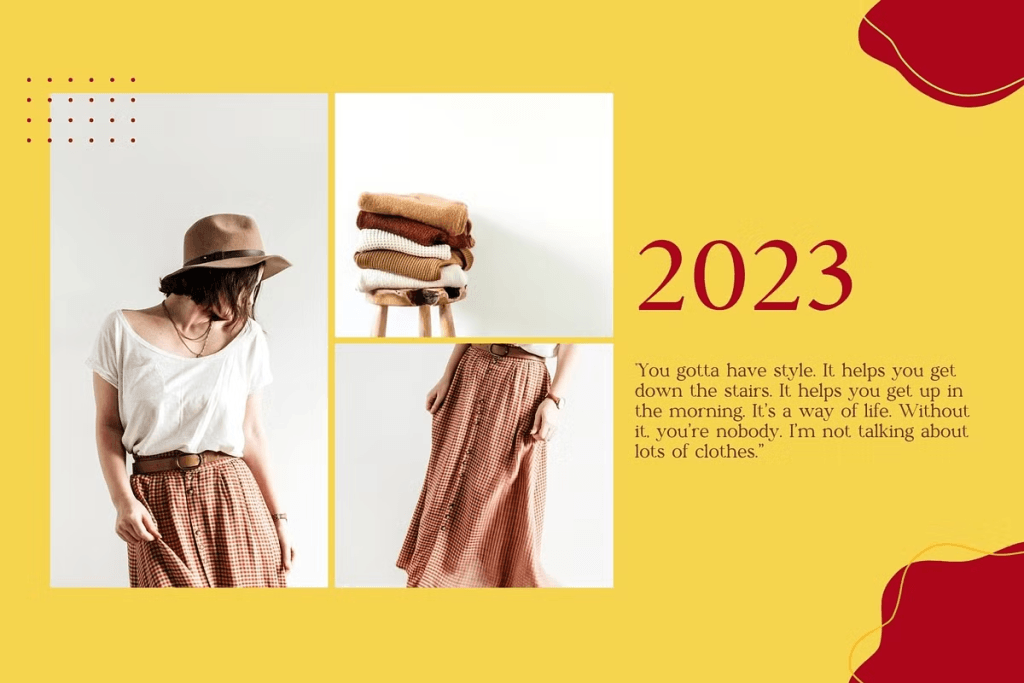
Choosing the best serif fonts for high-end fashion websites is one of the most effective ways to create a luxury digital experience. Many fashion brands invest heavily in photography, product presentation, and web design, yet their websites still fail to communicate exclusivity and sophistication. Often, the missing element is typography.
A fashion website should feel elegant from the moment a visitor lands on the homepage. Typography plays a major role in creating that impression. The right serif font can instantly communicate luxury, craftsmanship, heritage, and premium quality, qualities that high-end fashion customers expect.
Whether you’re designing a luxury clothing store, jewelry brand, fashion boutique, beauty label, or designer portfolio, selecting the right serif font helps create a stronger visual identity and a more memorable customer experience.
In this guide, we’ll explore the best serif fonts for high-end fashion websites, along with practical use cases and recommendations for creating a premium online presence.
What Is a Serif Font?
Before choosing a typeface, it’s important to understand what makes serif fonts unique. A serif font features small decorative strokes, known as serifs, at the ends of letterforms. These details may seem subtle, but they dramatically influence how typography feels and communicates.
Characteristics of Serif Fonts
Serif fonts are often associated with:
- Elegance
- Sophistication
- Heritage
- Luxury
- Professionalism
- Timeless design
For decades, luxury fashion houses have relied on serif typography because it creates a sense of authority and refinement.
Why Fashion Brands Love Serif Fonts
High-end fashion branding focuses on emotional perception.
Customers often associate serif typography with:
- Premium craftsmanship
- Designer exclusivity
- Luxury experiences
- Editorial aesthetics
This explains why many luxury fashion websites use serif fonts for headlines, logos, and hero sections.
Recommended Serif Fonts for High-End Fashion Websites
1. Rockqa
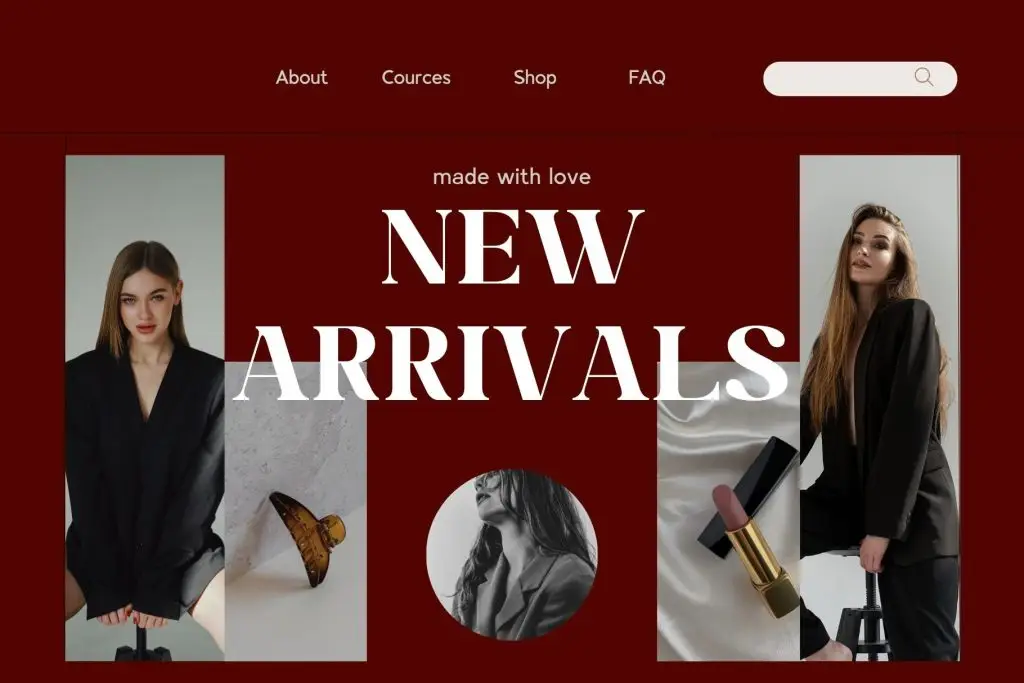
Meet Rockqa, an elegant serif font that embodies sophistication and modern beauty. With refined letterforms, balanced proportions, and smooth curves, Rockqa delivers a polished, professional look ideal for branding, fashion, and editorial use.
2. Schindler
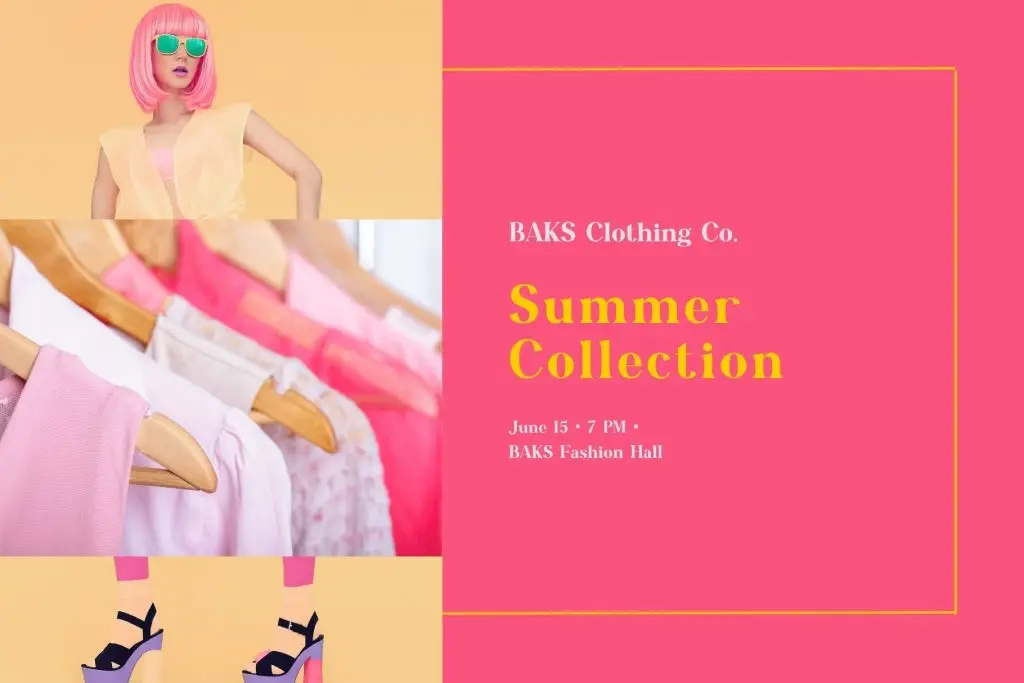
Introducing Schindler, a modern serif typeface designed to elevate your creative projects with elegance and precision. Its carefully crafted letters combine a modern look with a timeless, polished style, making it perfect for social media designs, beauty branding, advertising, and versatile applications. Schindler’s clean and refined letterforms ensure your designs communicate sophistication while maintaining readability and visual appeal.
3. Viona Collins
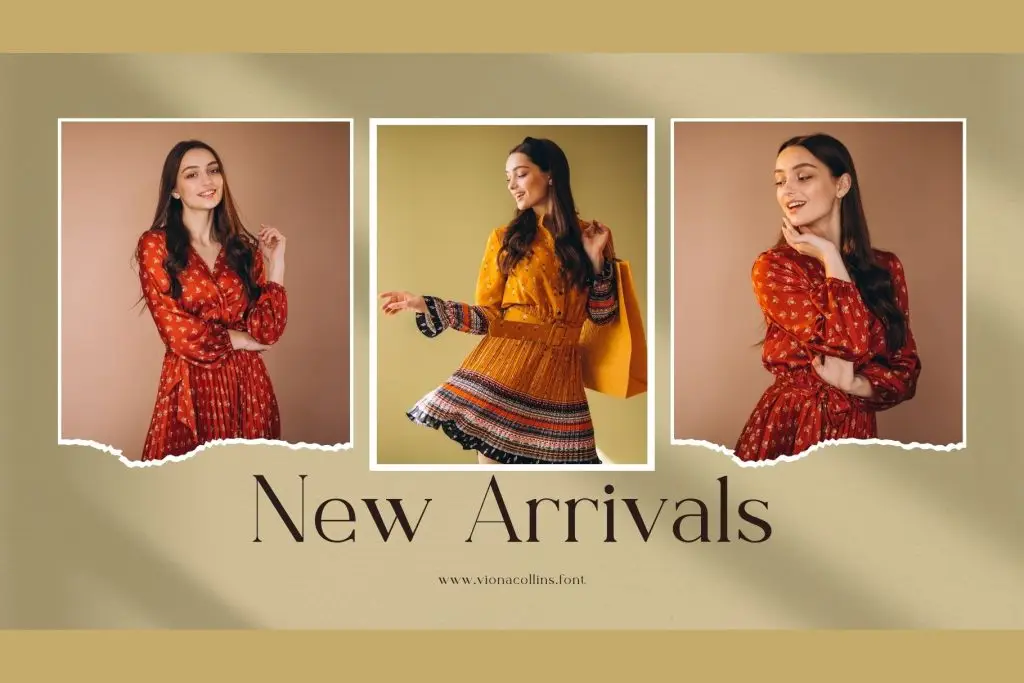
Discover Viona Collins, a modern serif font crafted to elevate your creative projects with timeless beauty. Each letter is meticulously designed to strike the perfect balance between contemporary style and classic elegance, ensuring refined readability and visual harmony.
4. Aeloria
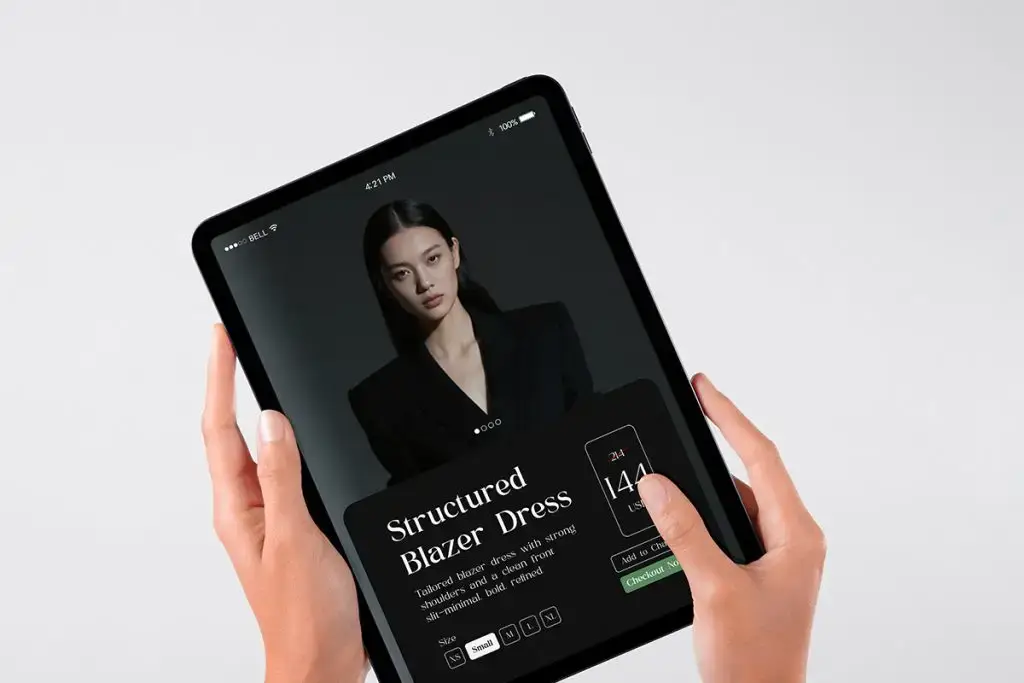
Introducing Aeloria, an elegant serif font designed for editorial layouts, corporate branding, professional presentations, and sophisticated design projects. Inspired by timeless classics, Aeloria blends sharp serifs with graceful proportions and high legibility, offering a versatile typeface that works beautifully for both print and digital applications.
5. Biospace
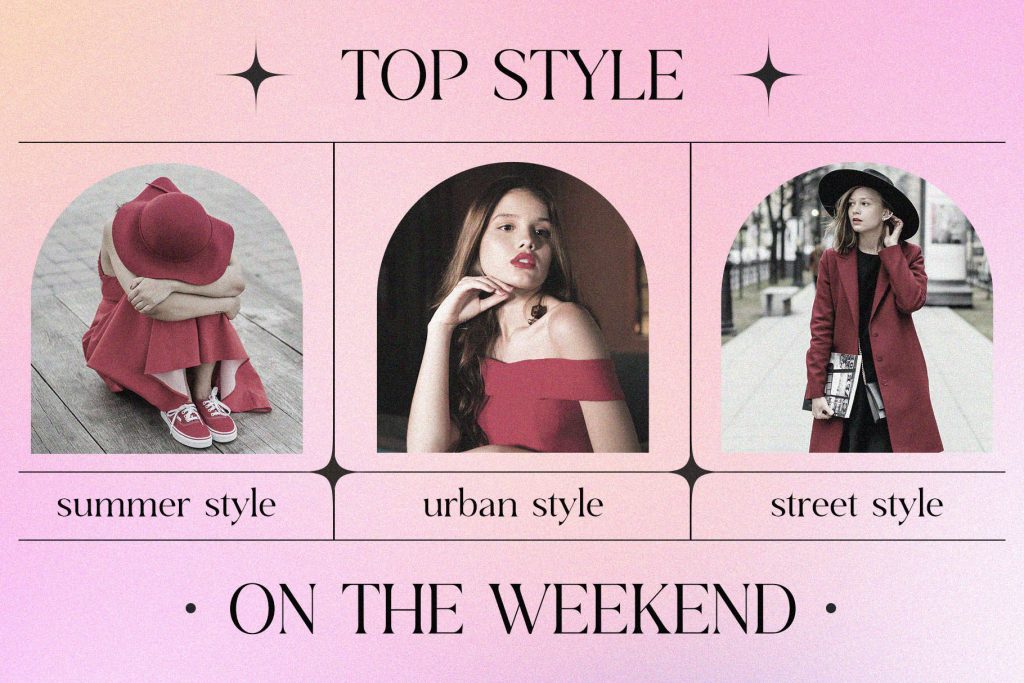
Introducing Biospace, a modern serif typeface that combines sleek, stylish design with sophistication. This modern serif typeface is the perfect choice for creating elegant and chic projects.
6. Fishera
Introducing Fishera, a modern serif font designed to bring elegance and precision to your creative projects. Whether you’re creating luxury branding, social media graphics, advertising campaigns, or fashion-related designs, Fishera delivers clean, versatile letterforms with a perfect balance of modernity and sophistication.
7. Karens
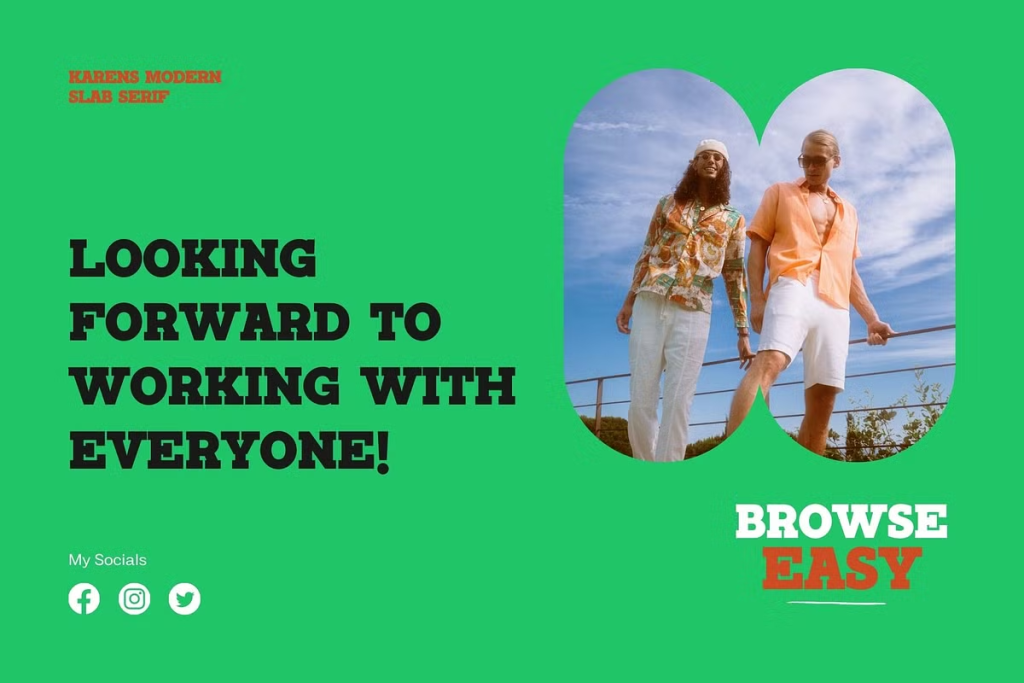
A beautiful set of letters is encapsulated in this ‘Karens’ font. The clean letters are perfect for modern needs, yet still look elegant when used for writing.
8. Tuner
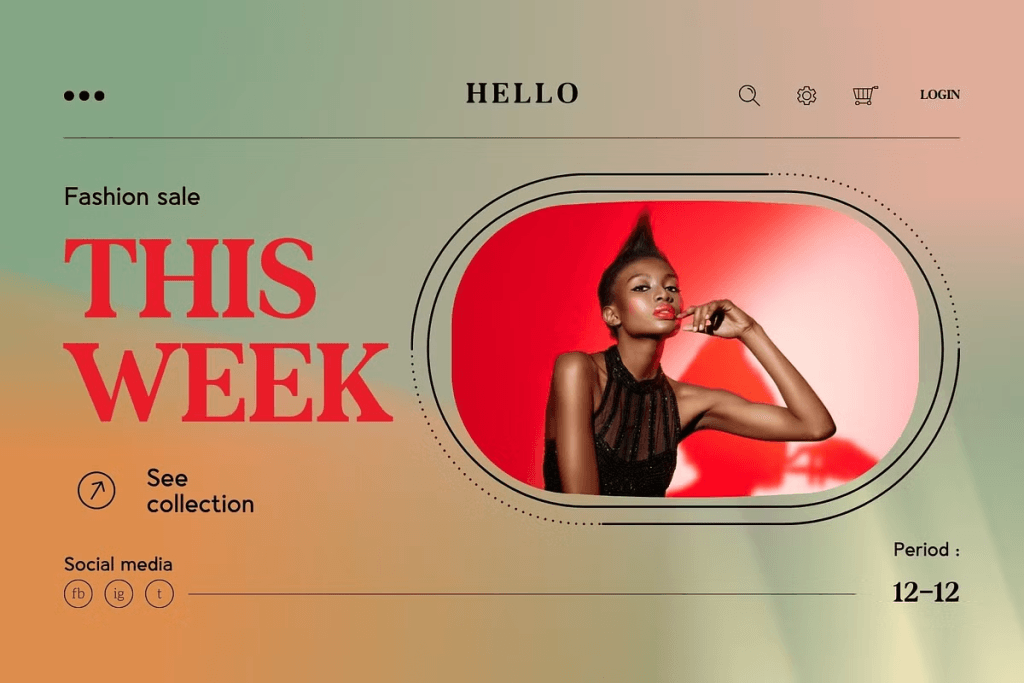
Tuner is a unique and highly elegant font for branding and logo design. This modern serif font combines classy and modern style. It’s perfect for a variety of purposes, including branding projects, logos, wedding designs, social media posts, advertising, product packaging, product design, labels, photography, watermarks, invitations, stationery, and any project requiring high readability.
9. Feriska
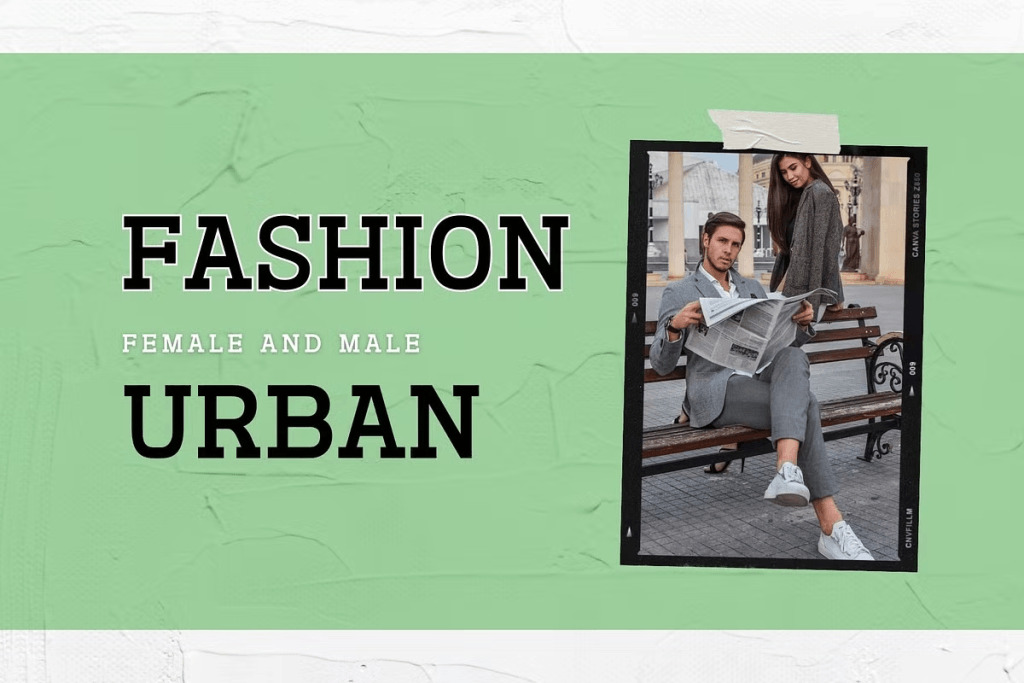
A series of exquisite fonts designed to enhance your creative projects. Immerse yourself in the allure of meticulously crafted letters that strike the perfect balance between modernity and elegance. Our commitment to precision shines through in the creation of each letter, prioritizing flawless design to ensure flawless typographic expression.
Fonts such as Rockqa, Schindler, Viona Collins, Aeloria, Biospace, Fishera, Karens, Tuner, Feriska, and Fambrey provide a strong foundation for creating premium digital experiences. When paired thoughtfully and applied consistently across your website, these fonts help strengthen brand identity and elevate the overall customer journey.